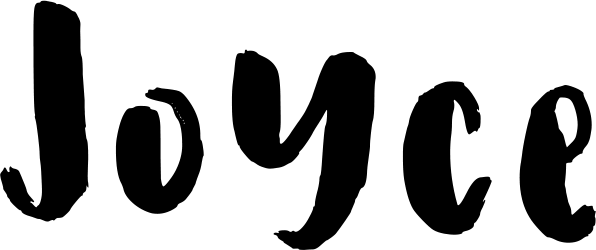
Joyce Font
For designing any kid’s books, posters, art projects, greeting cards, or even toy packaging, what could be more amusing than a comic brush font to entice your audience’s attention and engage them? Here Joyce, with all needed funny characteristics, comes to bring happiness and enjoyment with its cute, friendly, and playful layouts.